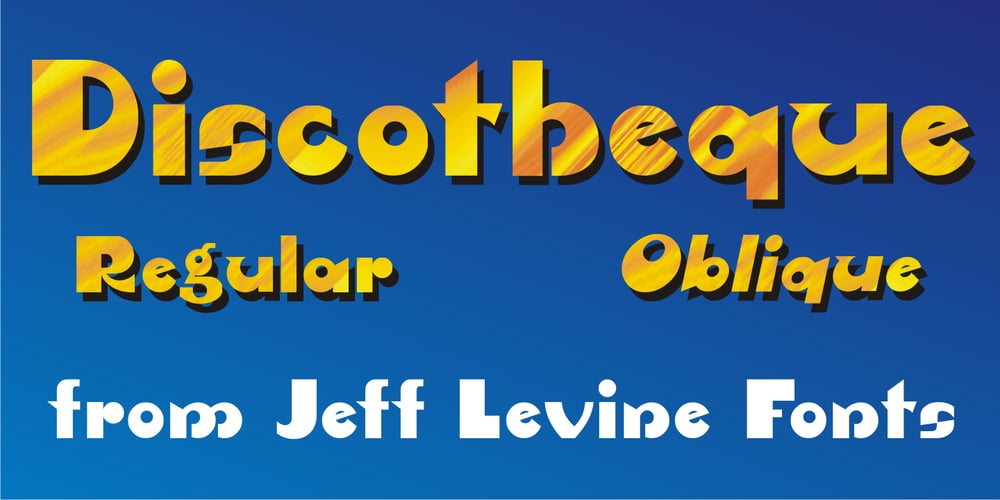
Discotheque JNL Font Family was designed by Jeff Levine and published by Jeff Levine. Discotheque JNL contains 2 styles and family package options. A 1930s casual Art Deco type style with as much influence in 1970s graphic design as in its day was found within the pages of the 1930s French publication L’Art du Tracé Rationnel de la Lettre. Discotheque JNL is available in both regular and oblique versions.